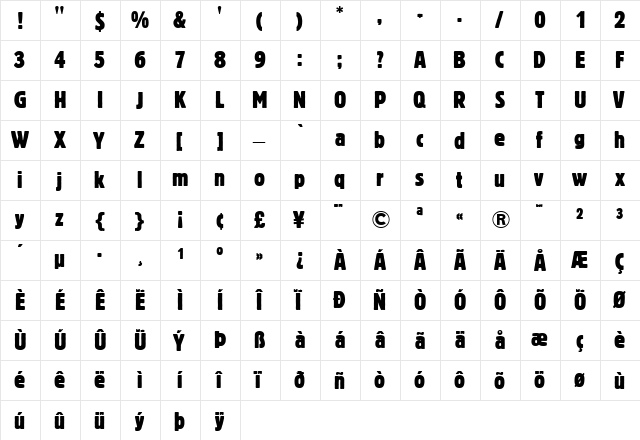
BlockBE Condensed
Design Context for BlockBE Typeface
BlockBE offers clean, dependable letterforms without strong stylistic allegiance, making it a practical choice for designers who need flexibility. Its narrow stance lets it pack a punch even in space-constrained designs.